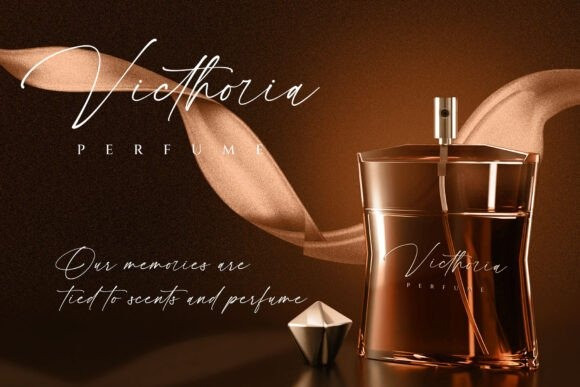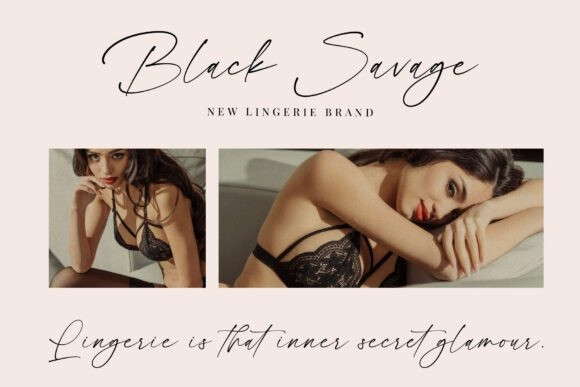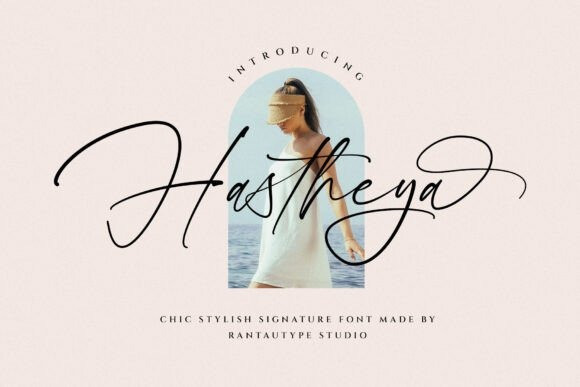
Hastheya Handwritten Font
Hastheya Handwritten Font is a magical script font carefully created with a touch of elegance. Whether you’re looking for fonts for Instagram or calligraphy scripts for DIY projects, this font will turn any creative idea into a true piece of art!